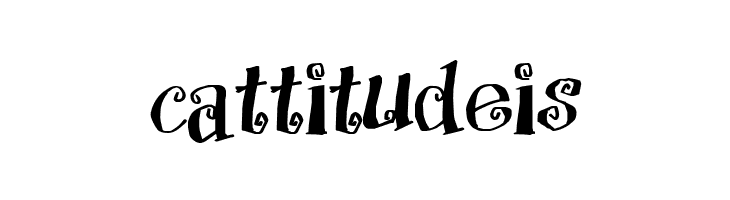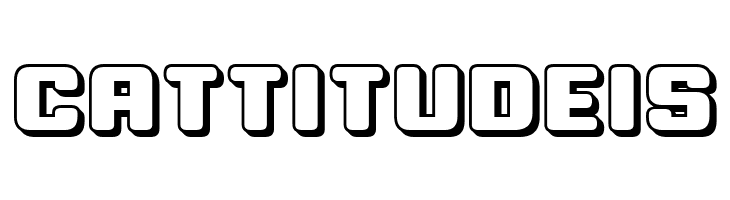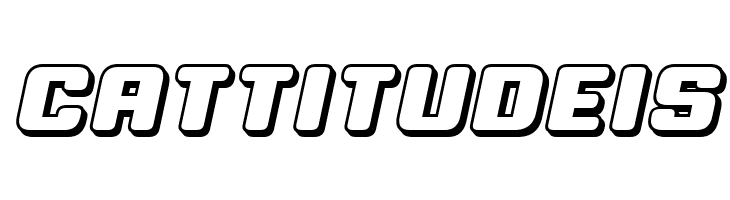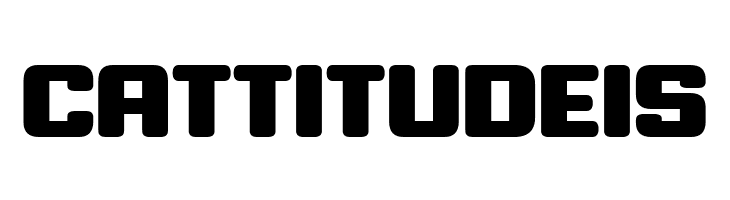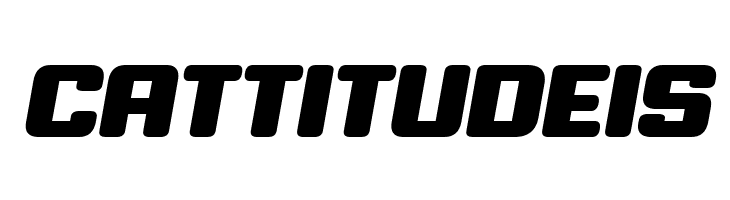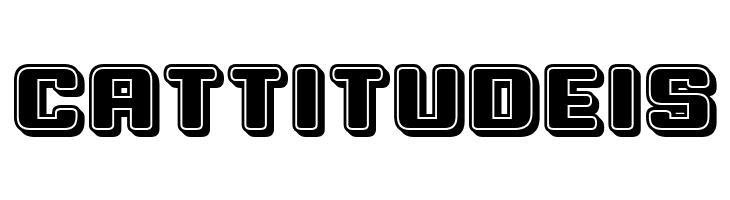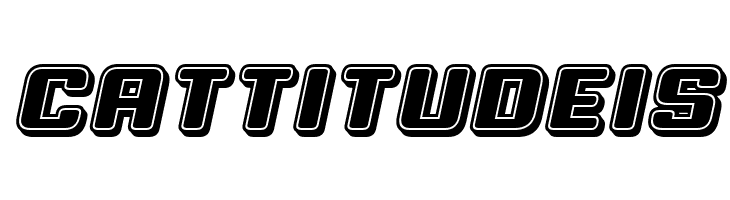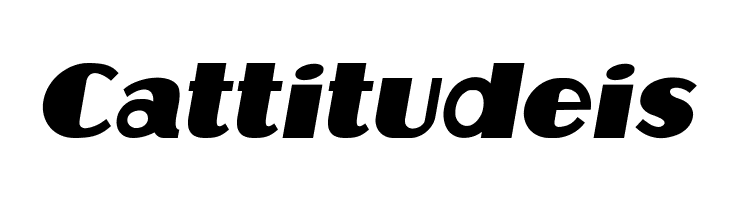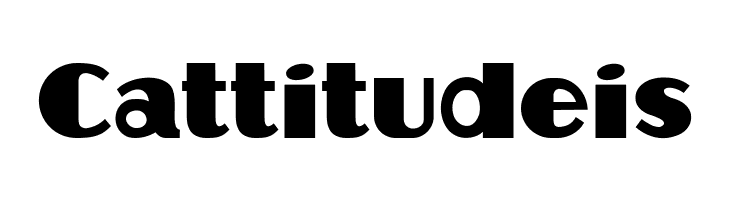
A playful, flowing script font with elegant curves and smooth strokes.
A bold, 3D, filled italic font with a modern, dynamic style.
A bold, 3D geometric font with a filled interior and thick outline.
A bold, 3D italic font with outlined characters and a modern, dynamic style.
A bold, 3D font with strong outlines and rounded edges, perfect for impactful designs.
A bold, italic font with rounded edges and a dynamic, modern style.
A whimsical and playful font with irregular, hand-drawn letterforms.
A bold, geometric font with rounded edges and a modern style.
A dot matrix style font with a digital, retro feel.
A bold, modern font with geometric cuts and high contrast.
A bold, modern font with a distressed, industrial look.
A bold, distressed font with a rugged, hand-drawn appearance.
A modern, geometric typeface with a clean and professional look.
A whimsical, handwritten font with decorative curls and swirls.
A whimsical, calligraphic font with fluid, curvilinear forms.
A bold, italic font with a strong visual impact and dynamic style.
A bold, geometric typeface with strong, modern letterforms.
A playful, decorative font with bold strokes and dot embellishments.
A bold, textured, hand-drawn style font with a dynamic and artistic feel.
A modern, rounded sans-serif font with bold, smooth curves and a friendly appearance.
A modern font inspired by Arabic calligraphy with bold, angular characters.
A bold, playful font with geometric and whimsical elements.
A bold, decorative font with exaggerated forms and dynamic shapes.
A clean, modern monospaced font with uniform character width and geometric design.
A modern, clean sans-serif font with excellent readability and versatility.
A bold, modern sans-serif font with clean lines and excellent legibility.
A clean and modern sans-serif font with consistent stroke weight and balanced proportions.
A bold, modern sans-serif font with uniform strokes and clear characters.
A modern, italic sans-serif font with clean lines and a dynamic style.
A modern, narrow sans-serif font with clean lines and uniform stroke width.